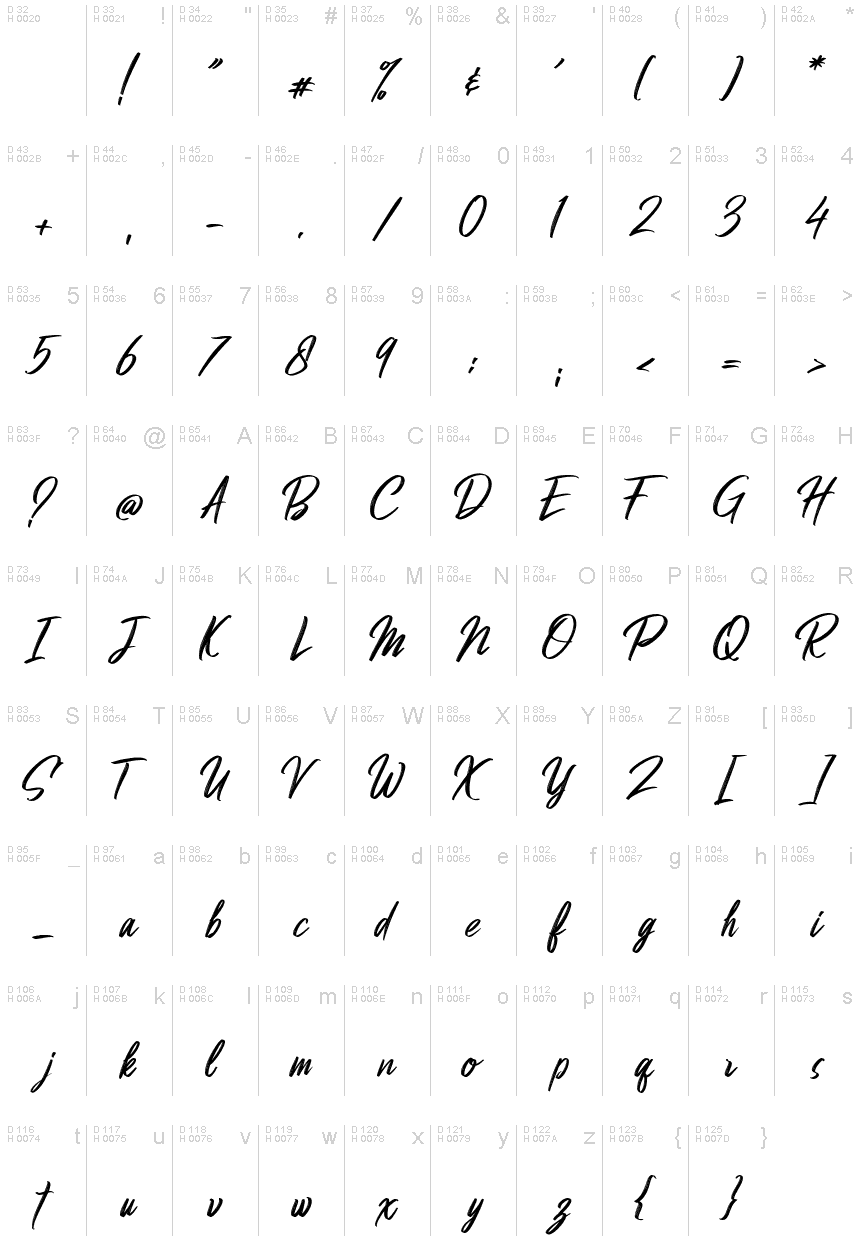
Hibrush DEMO
Hibrush! A brush font with 2 styles, regular (brush texture) and solid. Hibrush font is perfect for logos, apparel, T-shirt, Hoodie, product packaging, or anything else.
1. Uppercase and lowercase characters
2. Supports international languages
3. Numerals, punctuations, ligatures, stylistic alternates, and stylistic sets
6. Multilingual support.